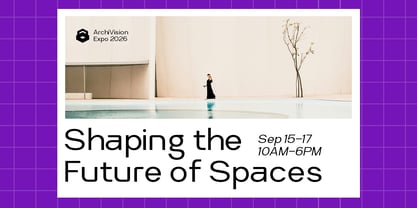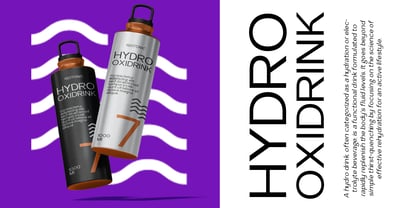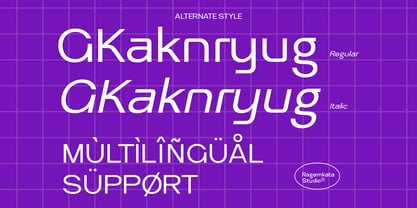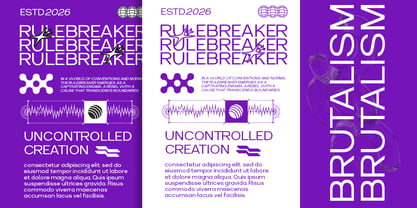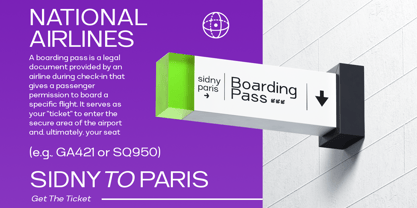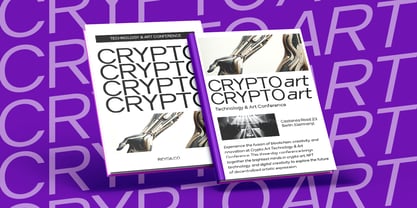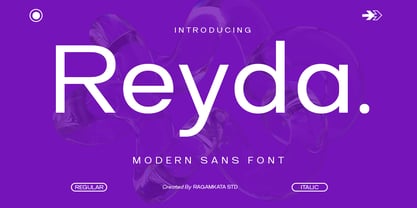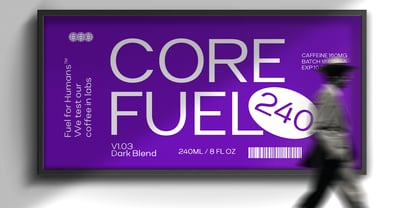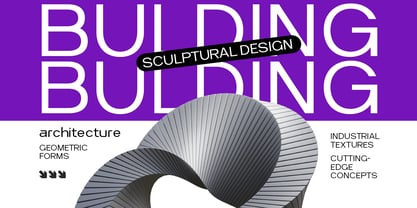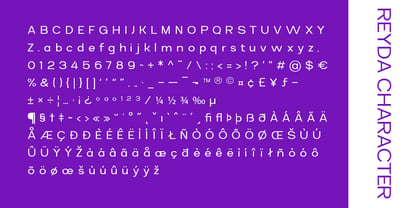
Reyda
by RagamKata
The Reyda Font Family was designed by Yogiswhara Dio Prakoso Riadi and published by RagamKata. Reyda contains 2 styles and family package options. More about this family
Reyda is a modern sans serif font characterized by clean geometry, smooth curves, and balanced proportions, delivering a bold yet minimal visual personality. Designed for clarity, flexibility, and a strong digital presence, this typeface embodies contemporary aesthetics that feel fresh, professional, and highly versatile for a variety of creative projects. Ideal for branding designers, tech startups, creative studios, UI/UX designers, digital creators, and marketing teams, Reyda serves as a reliable typographic solution for websites, apps, logos, social media, presentations, and advertising materials. Its modern structure ensures high readability while maintaining a stylish and polished appearance across both digital and print platforms. From corporate branding and tech interfaces to editorial layouts, promotional graphics, and motion design, Reyda elevates every project with a clean, confident, and futuristic tone. This font empowers designers to craft visual identities that are modern, dynamic, and timeless, delivering strong visual impact with simplicity and precision. Thank You! Ragamkata